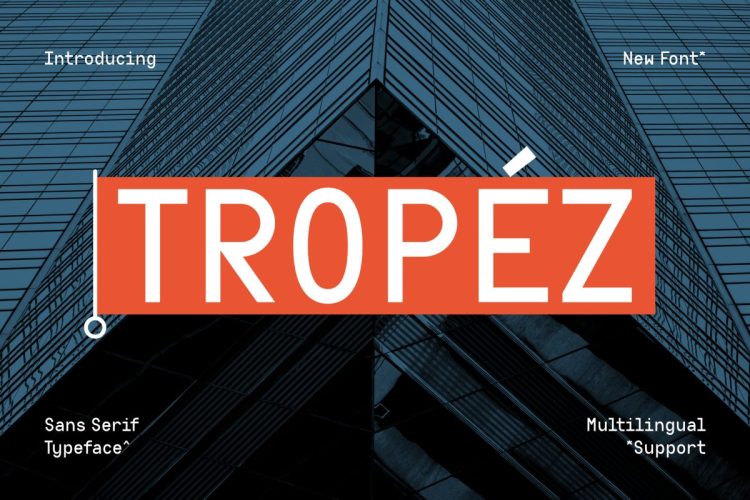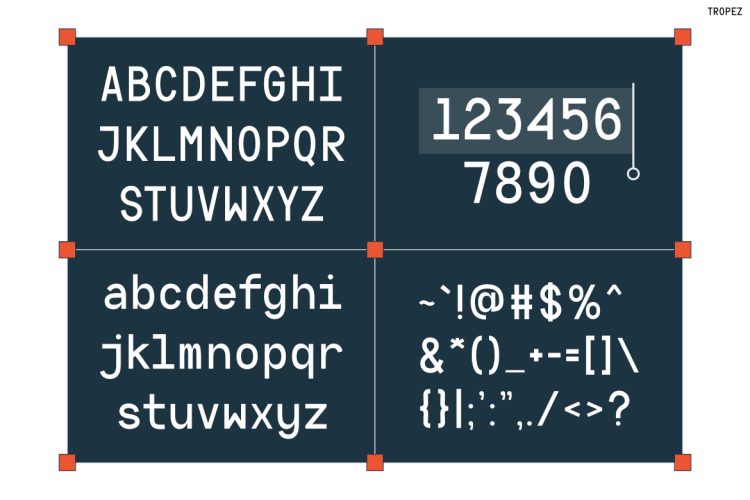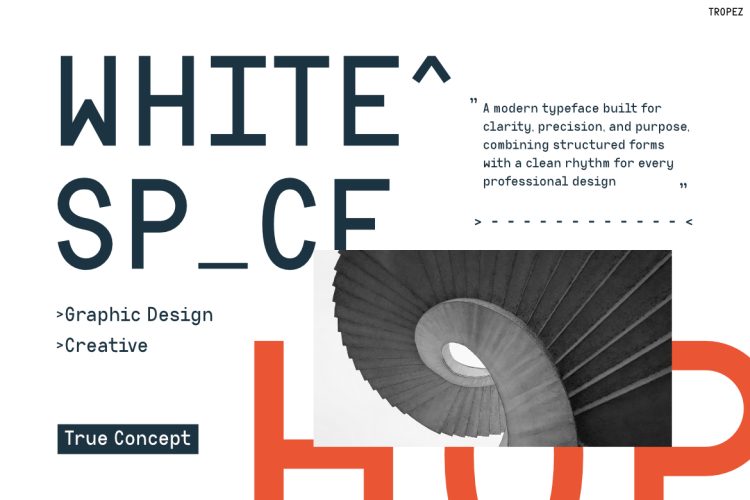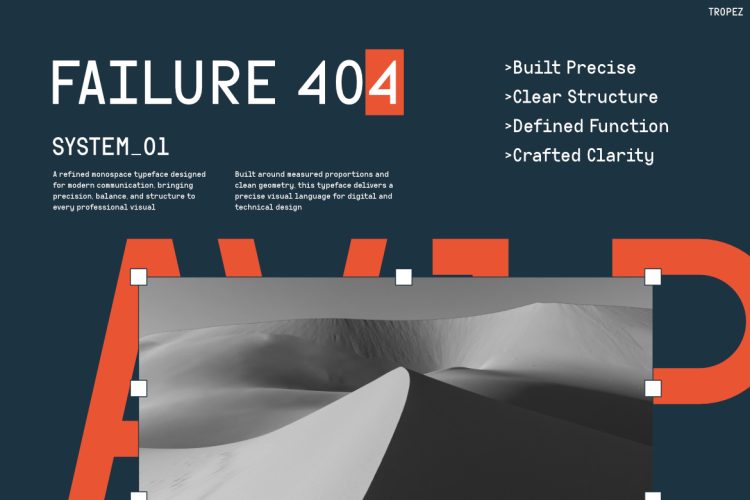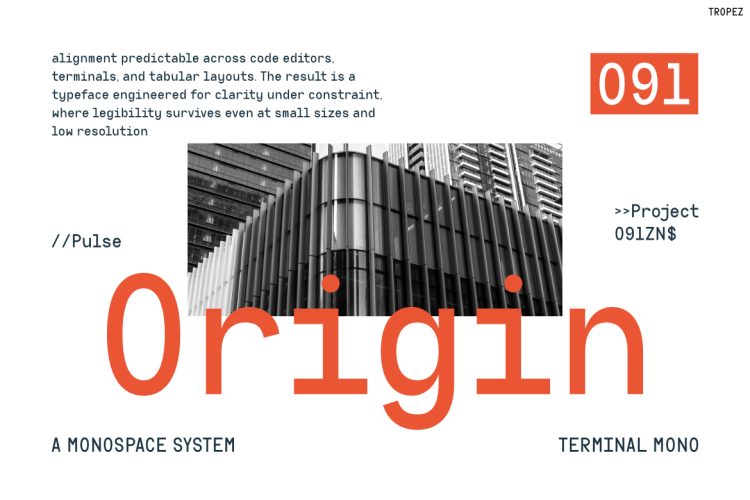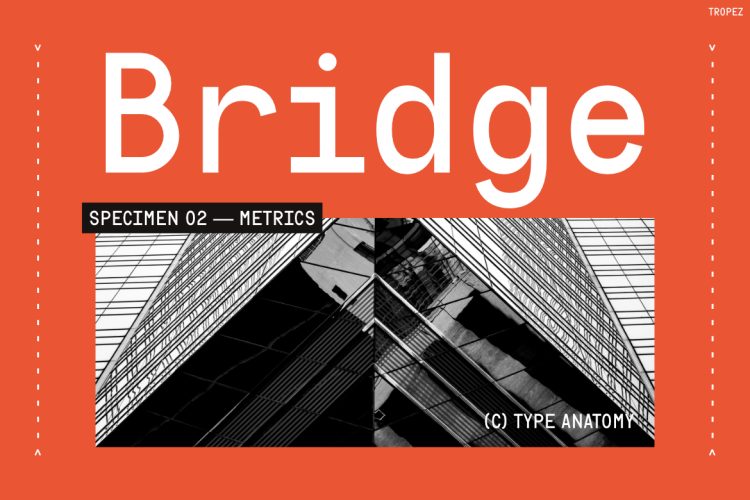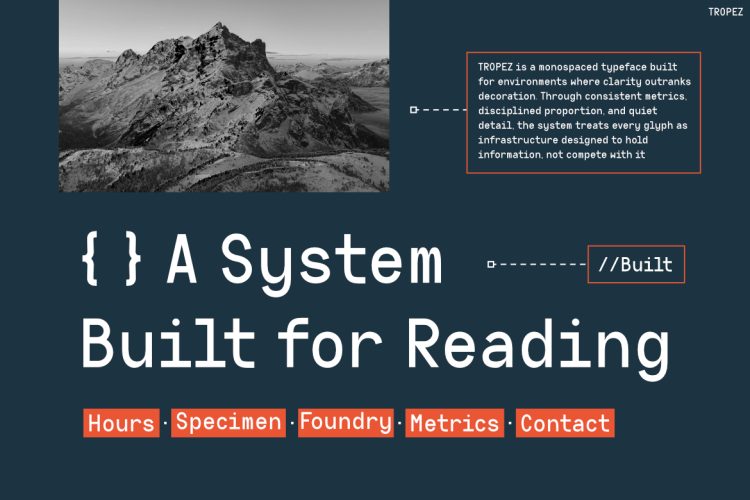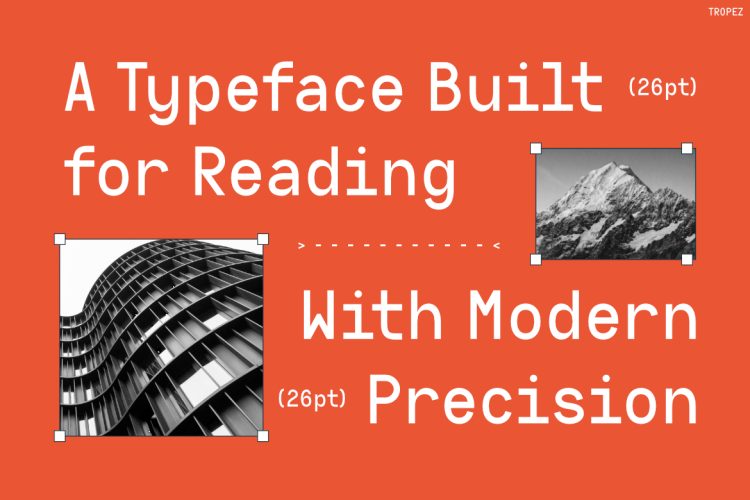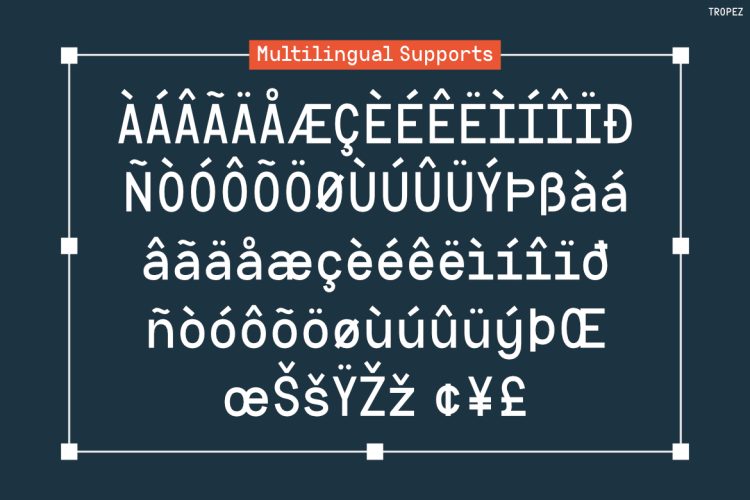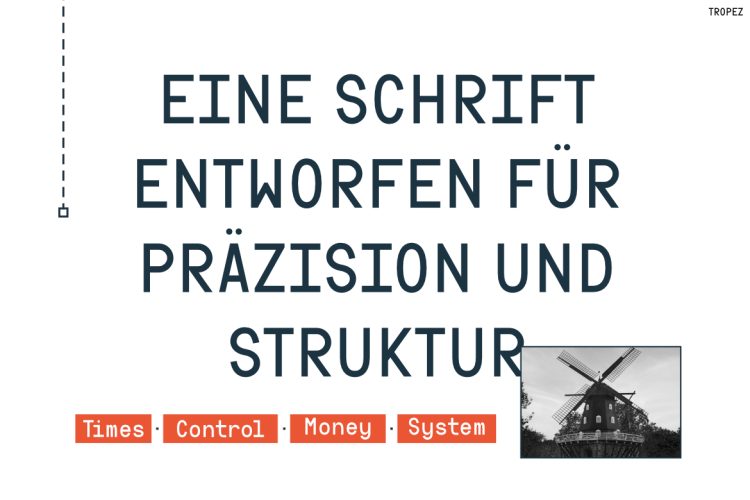
TROPEZ โ Modern Precision, Strong Visual Impact
Modern Font TROPEZ is a clean and structured typeface designed for contemporary creative projects. First of all, its geometric letterforms and precise proportions create a distinctive technical aesthetic. At the same time, TROPEZ maintains excellent readability, so it feels modern, professional, and easy to use. Because of this, it works beautifully for branding, posters, editorial layouts, websites, packaging, architecture, and digital campaigns. Furthermore, its balanced design helps create a strong visual hierarchy without overwhelming the overall composition.
Clean, Technical & Versatile
For this reason, TROPEZ is a great choice for graphic designers, brand designers, UI/UX designers, marketers, editorial creatives, and content creators. Moreover, its uppercase and lowercase characters provide flexibility for both impactful headlines and supporting text. Whether you are designing a technology brand, corporate identity, magazine, architectural presentation, or modern advertising campaign, TROPEZ brings clarity and character. In addition, its numbers, symbols, and multilingual characters make it even more practical for professional design work.
Modern Font TROPEZ 67 Languages. Global Ready.
Whatโs more, TROPEZ supports 67 languages, allowing you to create consistent typography across international and multilingual projects. Therefore, it is a smart option for designers working with global brands and diverse audiences.
Finally, if you want a typeface that combines precision, personality, and modern style, TROPEZ is ready to elevate your next project. So, give your designs a sharper voice and make every headline stand out.